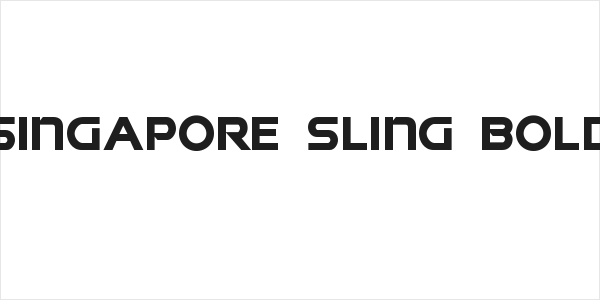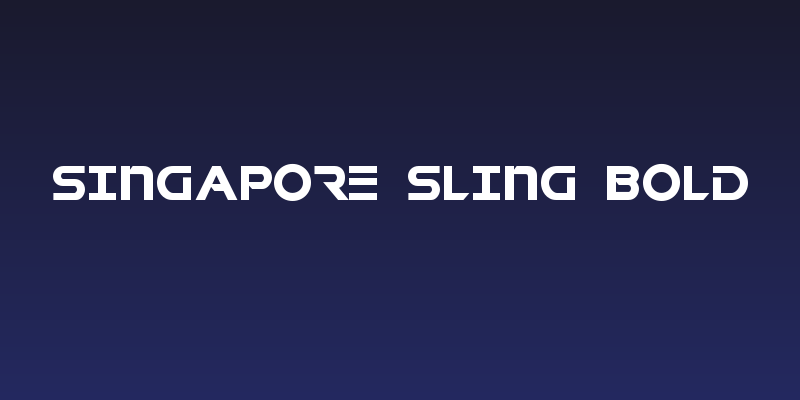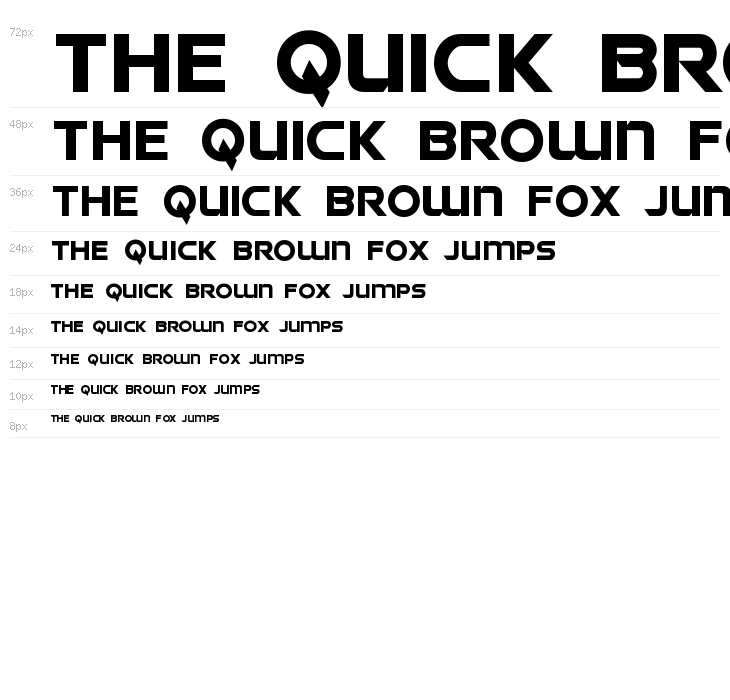
Singapore Sling Bold Font
Singapore Sling Bold Description
This font features a bold and geometric design with a futuristic flair. The characters are constructed with sharp angles and clean lines, giving it a modern and assertive appearance. The uppercase and lowercase letters maintain a consistent style, with some unique elements such as the slashed zero and distinctive shapes in letters like Q and R. The numerals are equally bold, ensuring readability and impact. Special characters are designed to match the overall aesthetic, making this font suitable for a variety of creative applications.